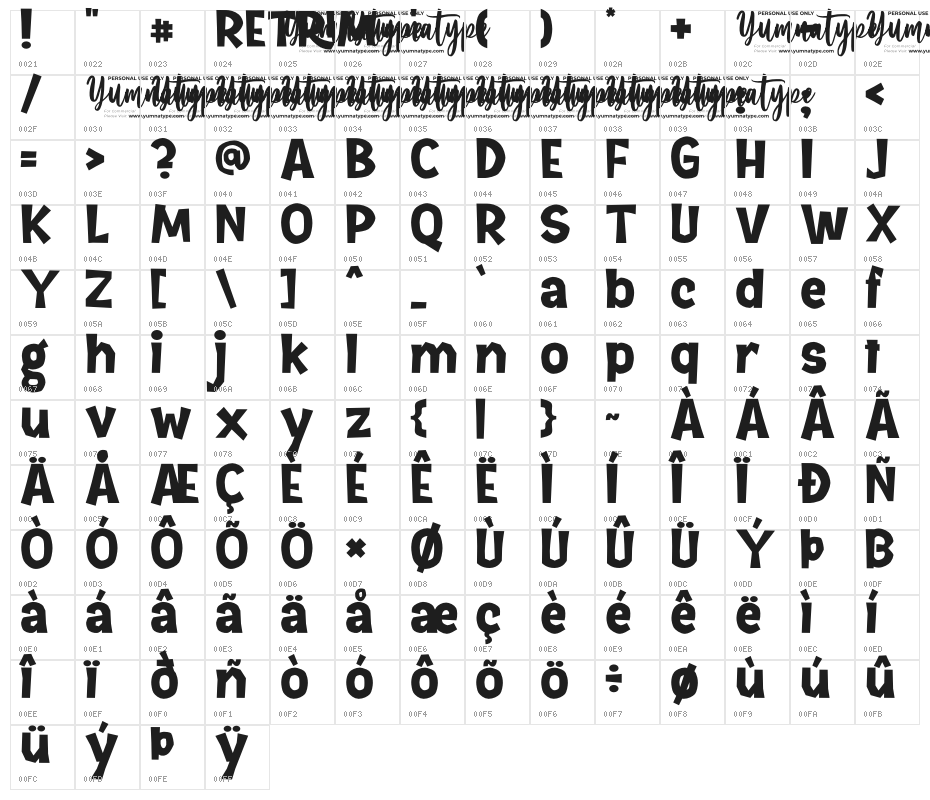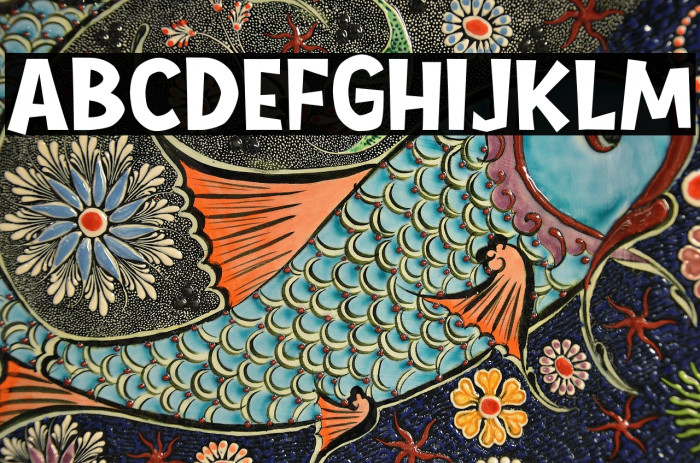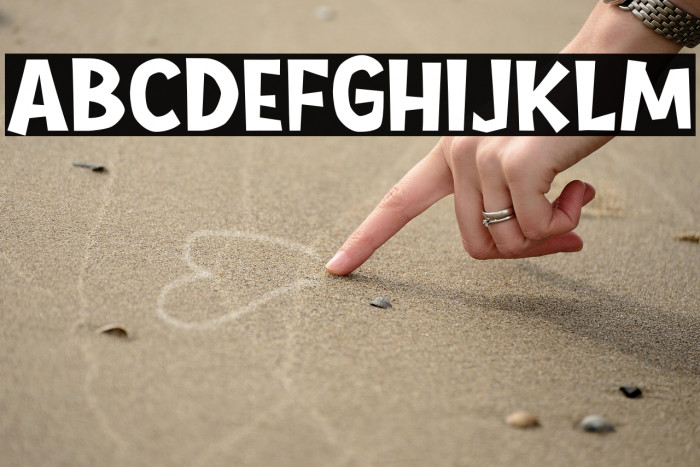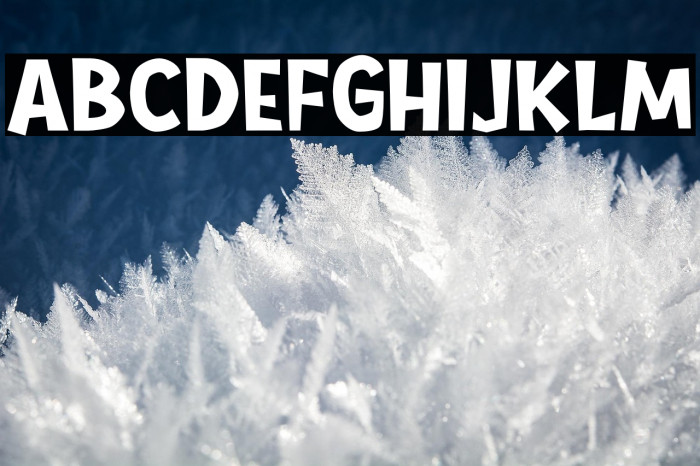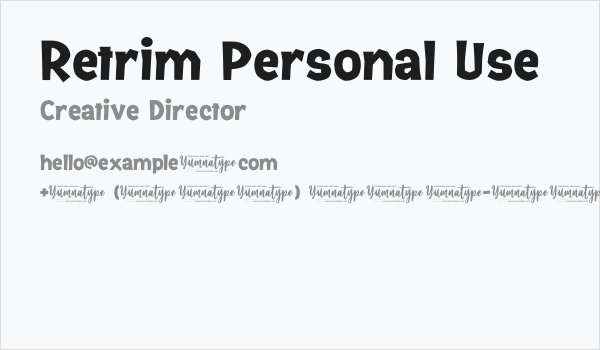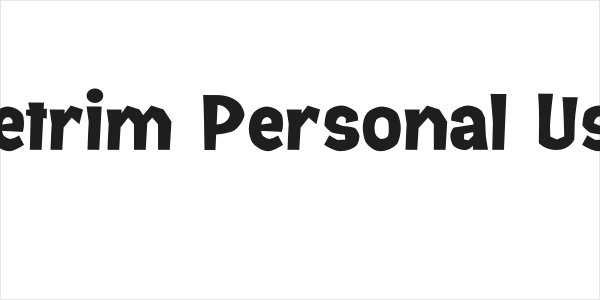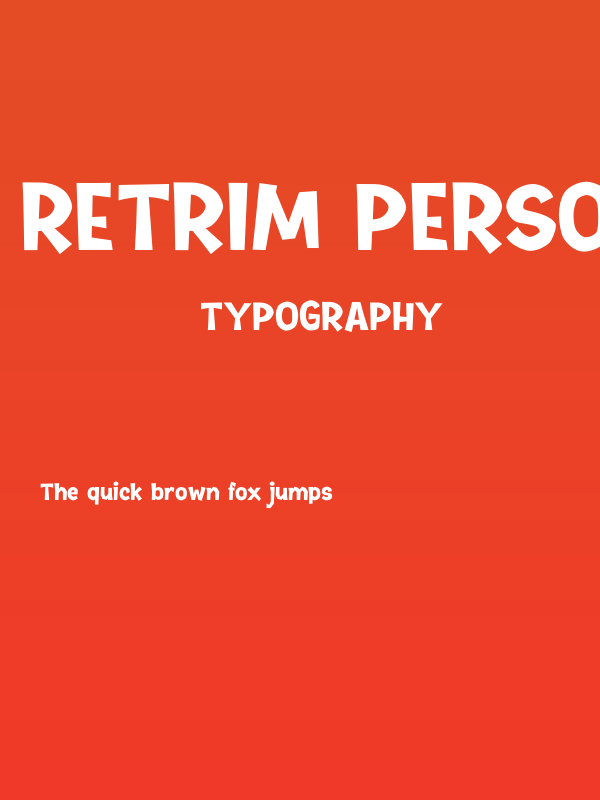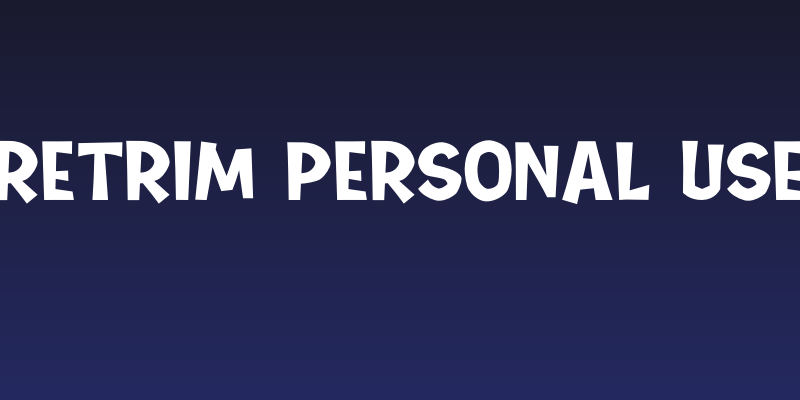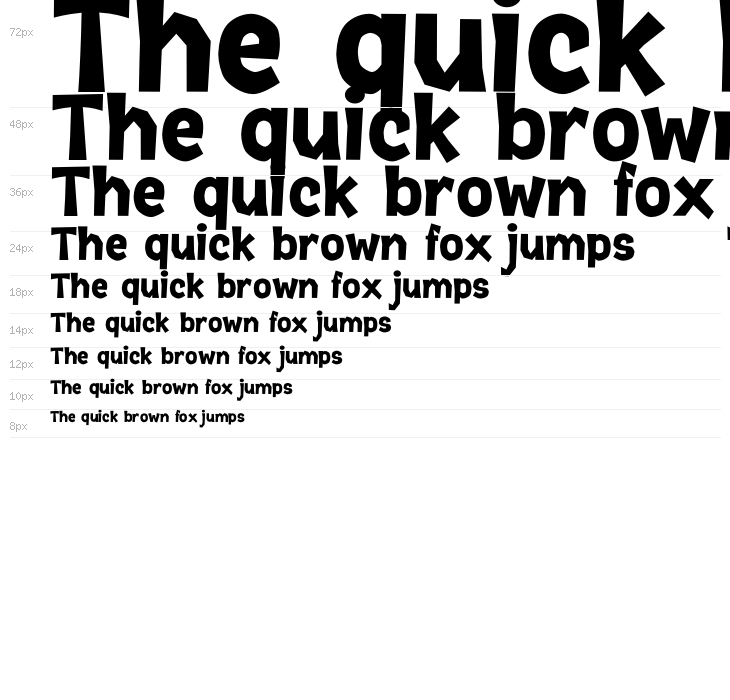
Retrim Personal Use Font
Retrim Personal Use Description
This font features a bold and playful design with a slightly irregular and hand-drawn appearance. The characters have a unique, quirky style with varying stroke widths that add a dynamic and lively feel. The uppercase and lowercase letters maintain a consistent style, with some letters exhibiting exaggerated curves and angles. The numbers and special characters follow the same playful aesthetic, making the font suitable for creative and informal projects. Its distinct personality makes it stand out, ideal for eye-catching designs.
| Overall Style | Playful, Quirky, Hand-drawn |
| Proposed Projects | Ideal for children's books, playful branding, posters, and creative invitations. |